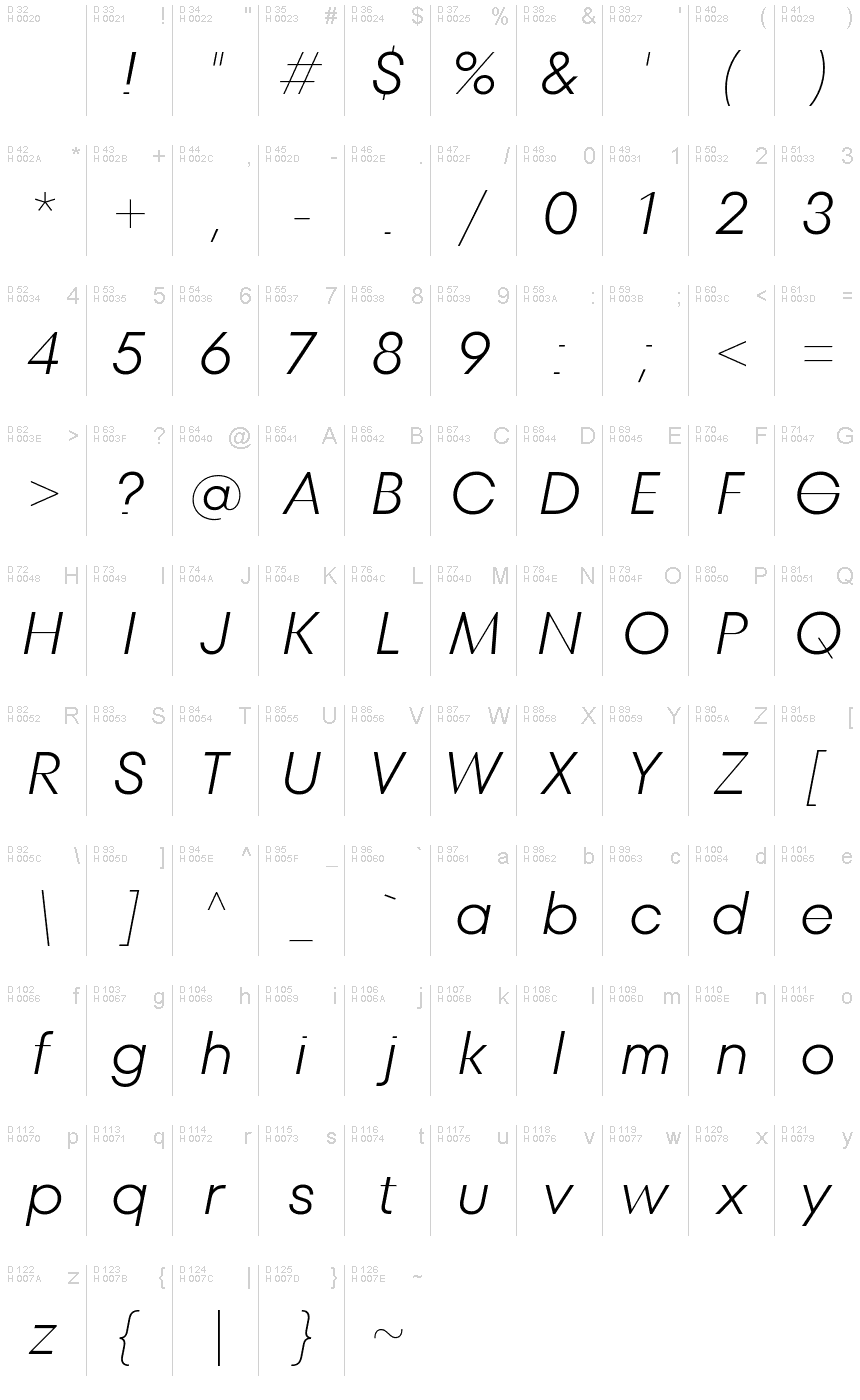
TT Fors Display Trl Light Italic
TT Fors Display Light Italic is a stunning sans serif font that adds an elegant touch to any project. Created by TypeType Foundry, this typeface is perfect for a variety of projects, from branding to editorial design. The light weight and italic styling give it a delicate look that can be used for anything from wedding invitations to high-end fashion magazines. With its clean lines and modern feel, TT Fors Display Light Italic is sure to make your text stand out. Whether you're working on a website or print project, this font will add sophistication and style to anything you create.